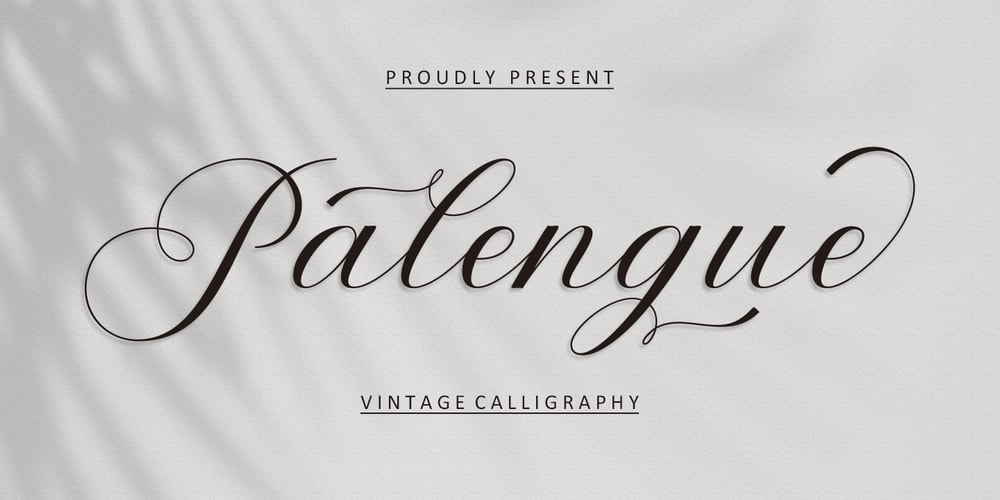
Palengue Script Font Family was designed by Nanda Putra Sukmayadi and published by Strong. Palengue Script contains 1 styles and family package options. Palengue script with modern calligraphy type font, I hope you are interested in this font, if you want to use it for your work, this font can be used easily and simply because it contains many features that contain a full set of uppercase and lowercase letters. letters, various punctuation marks. , numbers, and multilingual support. This font also contains several alternative ligatures and Style Stylistic Sets for those of you who have software capable of running OpenType (Photoshop/Illustrator/InDesign). Palengue Script is perfect for today’s growing design market, this font has a trendy, natural and subtle style, with this font you can use every moment as a great way to highlight a celebration. your best party, because this font will support for purposes such as wedding invitations, parties, graduations, birthdays, social gatherings, etc. Thank you,